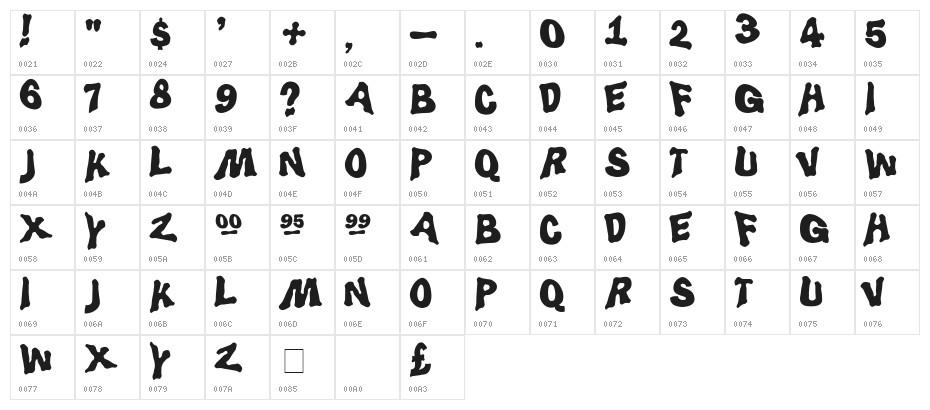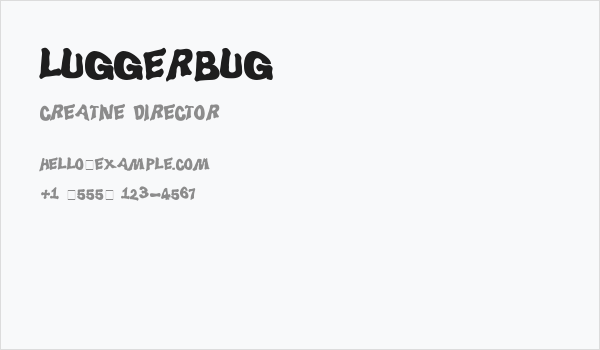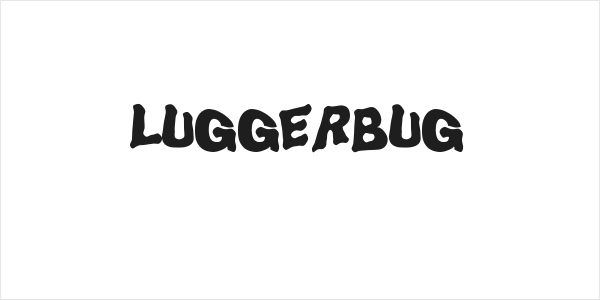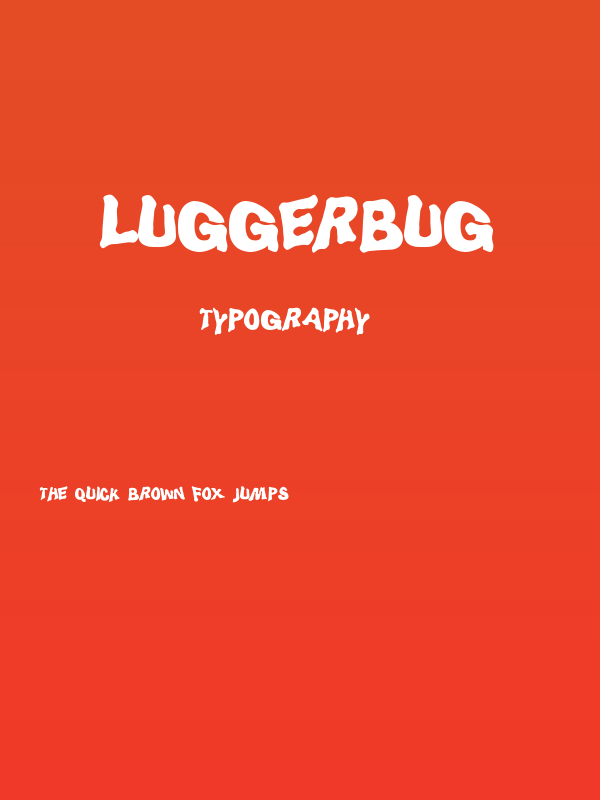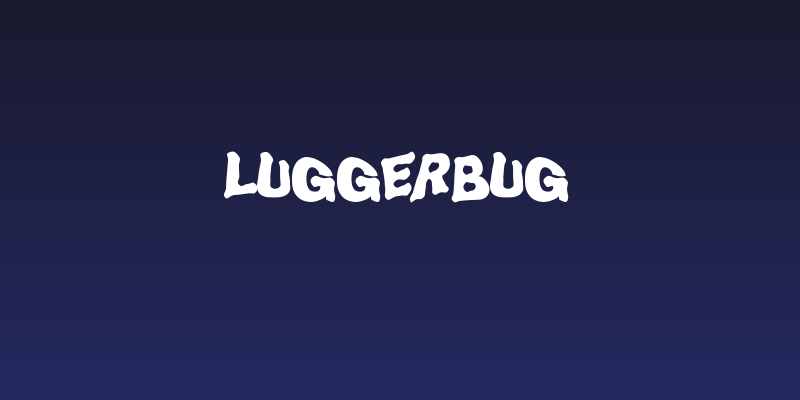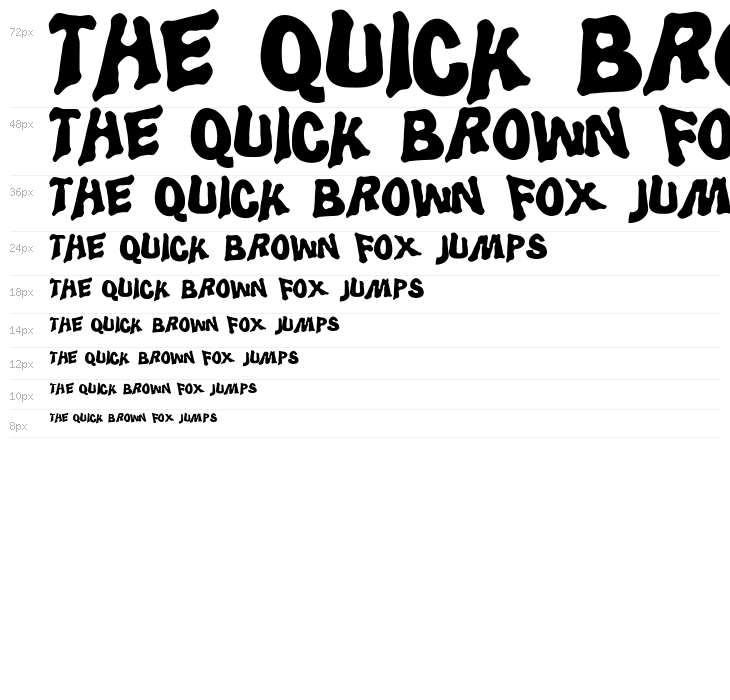
LuggerBug Font
LuggerBug Description
This font features a bold and playful design with exaggerated, irregular shapes that give it a whimsical and dynamic appearance. The characters are thick and rounded, with a hand-drawn feel that adds a touch of creativity and uniqueness. The uppercase and lowercase letters maintain a consistent style, while the numbers and special characters complement the overall aesthetic. The font's boldness and distinctive style make it stand out, making it ideal for projects that require a fun and eye-catching typeface.
| Overall Style | Playful, Whimsical, Creative |
| Proposed Projects | Ideal for children's books, playful branding, posters, and creative projects that require a fun and engaging typeface. |